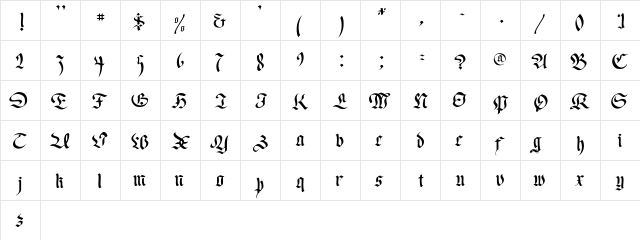
Goethe Regular
Design Context for Goethe Typeface
Goethe is a composed and adaptable typeface that performs quietly and consistently across a wide range of design contexts.